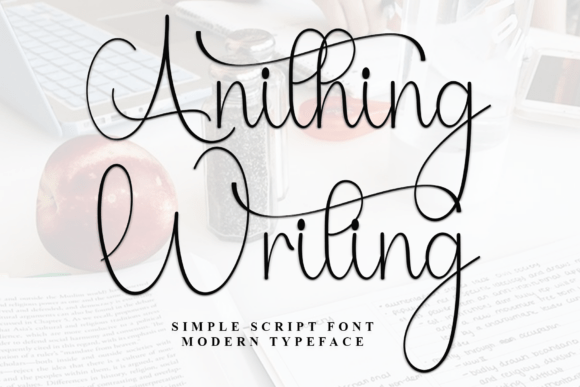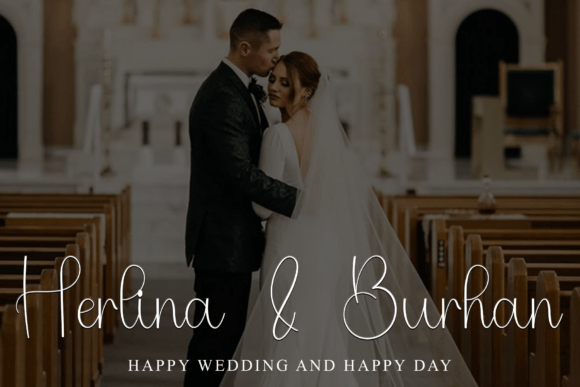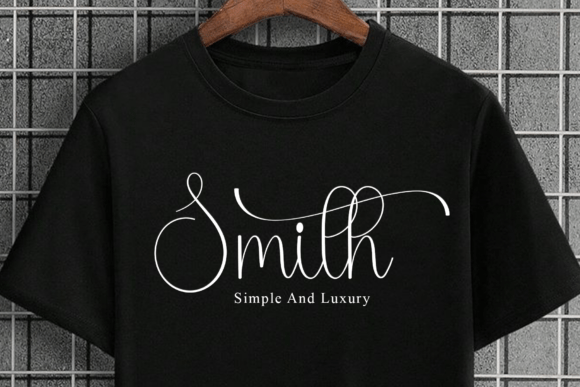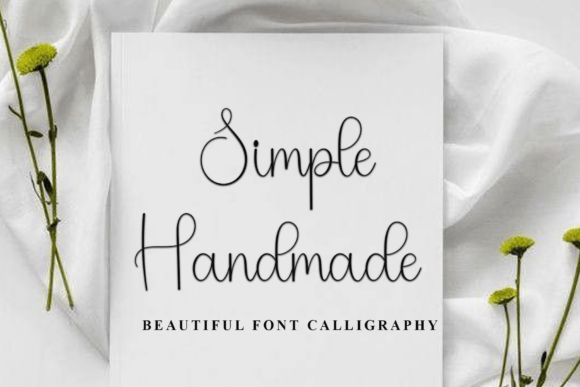
Anithing Writing Font
About the Anithing Writing Font
The Anithing Writing Font offers a perfect balance of form and function for your design needs. Anithing Writing is a casual and creative font that exudes warmth and friendliness. Its round, playful strokes create a relaxed and approachable feel, perfect for personal projects, invitations, and social media graphics. The font’s charming, hand-drawn aesthetic adds a fun and unique touch to any design.
Anithing Writing Font shines in headlines, short-form text on packaging, and social media posts where its playful nature adds personality. It’s also well-suited for invitations and branding projects requiring a friendly, approachable feel. However, its informal style makes it less ideal for body copy or UI elements where readability is paramount. Extended use in paragraphs will likely hinder legibility.
Pair Anithing Writing with a clean sans-serif like Lato or Open Sans for a balanced contrast, maintaining readability while preserving the hand-drawn charm. For a more playful effect, consider pairing it with a geometric sans-serif like Montserrat. Alternatively, a classic serif like Garamond could add a touch of sophistication to balance its casual aesthetic.
The overall personality of Anithing Writing is best described as friendly and casual, with a touch of handmade charm. It’s a font that conveys warmth and approachability, making it a strong choice for brands or projects targeting a young, creative audience.
Anithing Writing Font Usage Examples
Anithing Writing Font Example